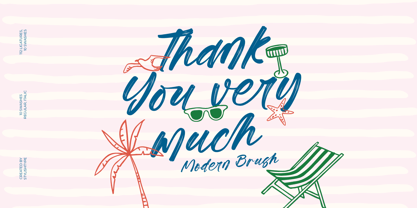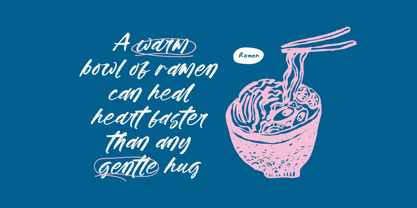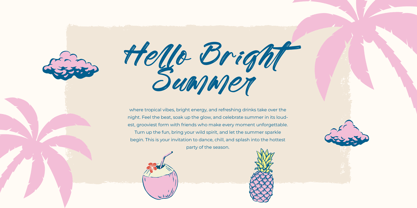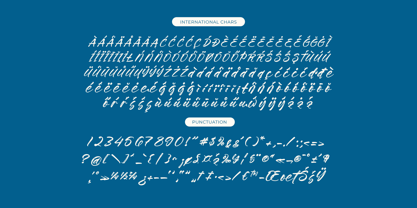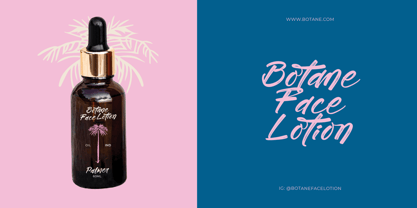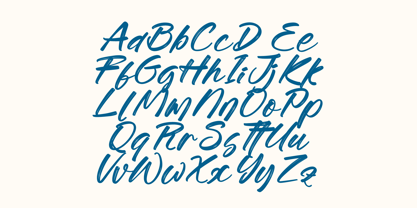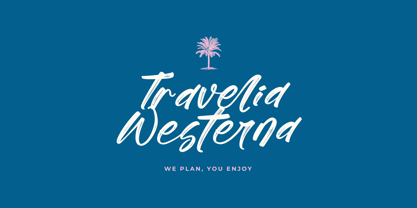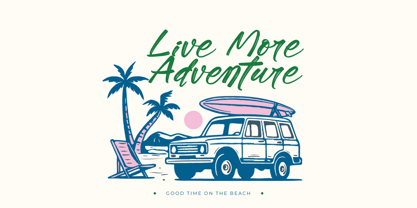
Tropics Sometimes
by Stylishtype Studio
The Tropics Sometimes Font Family was designed by Heru Utama Putra and published by Stylishtype Studio. Tropics Sometimes contains 1 styles. More about this family
Tropics Sometimes Beaches - Modern Brush Font , from Stylishtype , Suitable for any projects such as: logos, branding projects, homeware designs, product packaging, mugs, quotes, posters, shopping bags, t-shirts, book covers, name card, invitation cards, greeting cards, label, photography, watermark, special events, and all your other luxury and beautiful projects that need a Luxury Script taste.